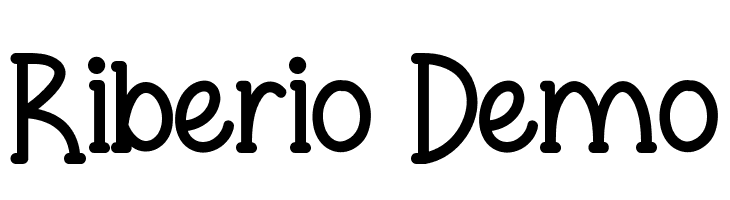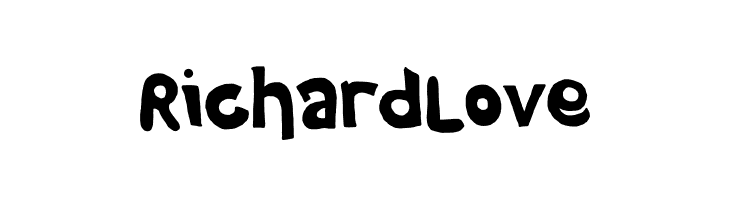
( Fonts by RaisProject )
A playful, rounded font with a whimsical and friendly design.
( Fonts by Graphicfresh )
A bold, playful font with a hand-drawn, organic style.
( Fonts by http://perso.calixo.net/~uzim/ )
A playful, hand-drawn font with irregular, whimsical strokes.
( Fonts by fhammadiq std )
A bold, playful font with rounded, hand-drawn characters.
( Fonts by Edy Wiyono )
A playful, handwritten font with bold, rounded characters and a whimsical style.
( Fonts by Niskala Huruf )
A playful, hand-drawn font with uneven strokes and a whimsical style.
( Fonts by Nini Prower )
A bold, rounded font with a playful and modern style.
A bold, decorative font with intricate geometric patterns.
A whimsical, decorative font with tall, narrow letterforms and artistic details.
( Fonts by Tokokoo Studio )
A bold, angular font with a rugged, adventurous style.